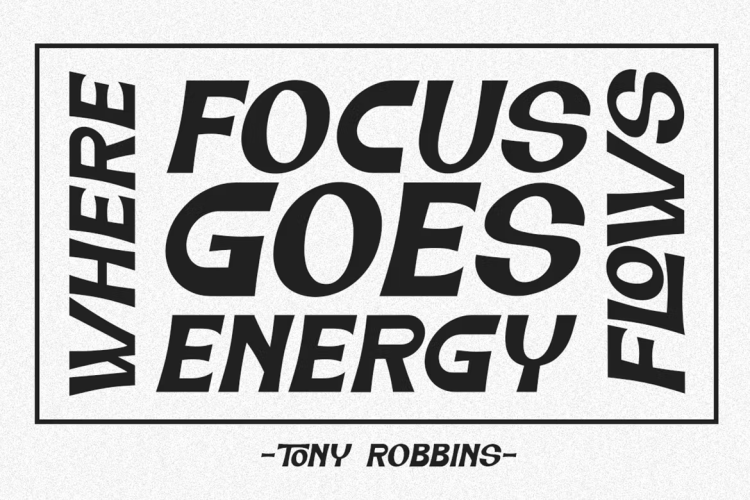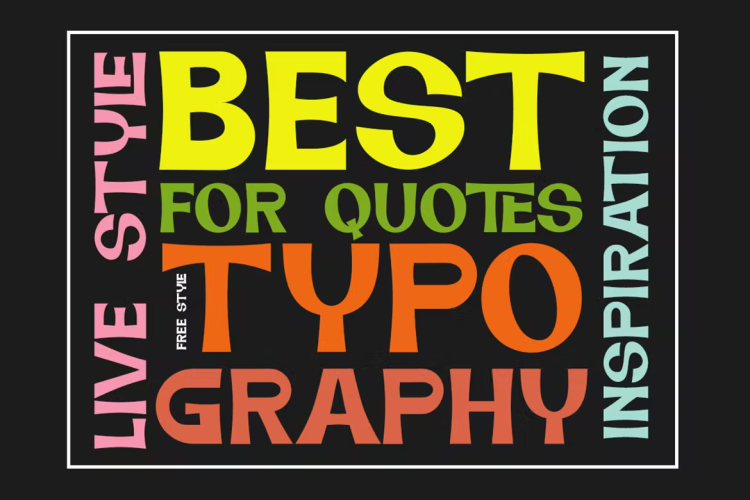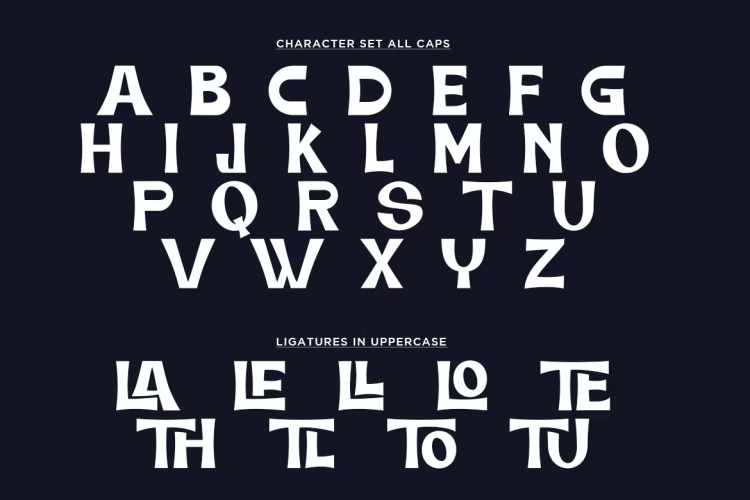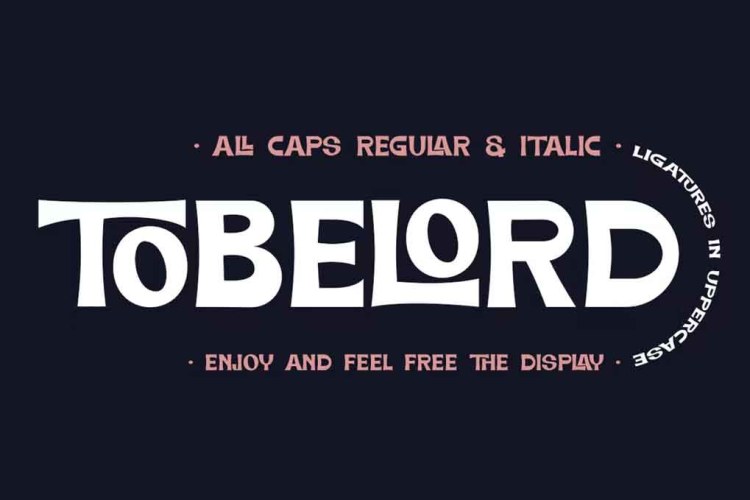
TOBELORD Font
TOBELORD is sans display font with all caps style touch combining classic and modern style. Consist of Regular and Italic style.
TOBELORD font is suitable to use for all purpose for your logo lettering, logo, label, packaging, sticker, branding and many more
Where TOBELORD Font works best
TOBELORD Font stays legible at small sizes, which makes it a strong choice for navigation, buttons and dashboards in web design and app interfaces.
Clean sans serifs like TOBELORD Font are the default language of SaaS, fintech and product branding.
What is TOBELORD Font good for?
TOBELORD Font is a Sans Serif Fonts typeface tagged Branding, Classic, Craft, Display. It works well for headlines, logos, posters, social media graphics and branding projects that need a distinctive sans serif fonts look.